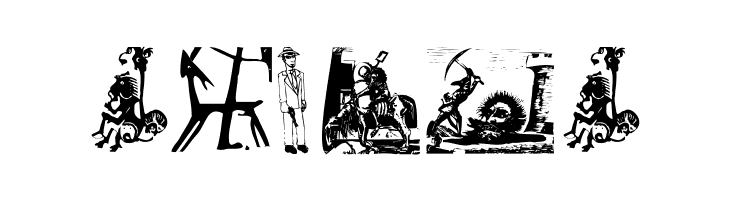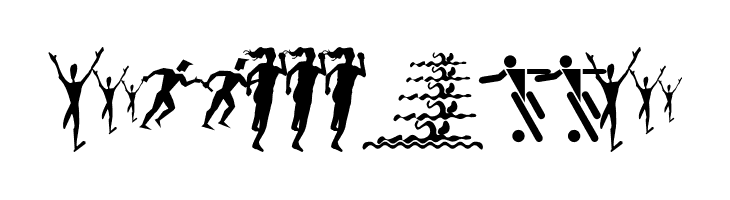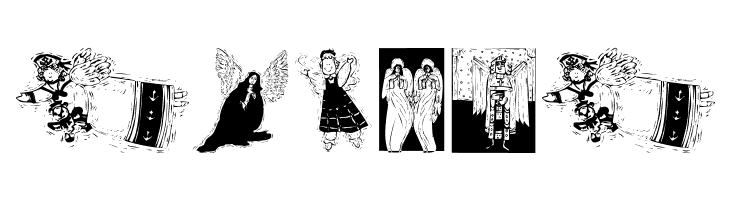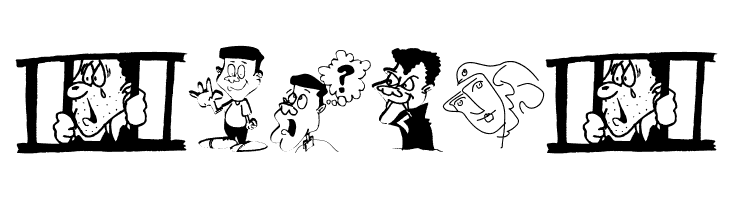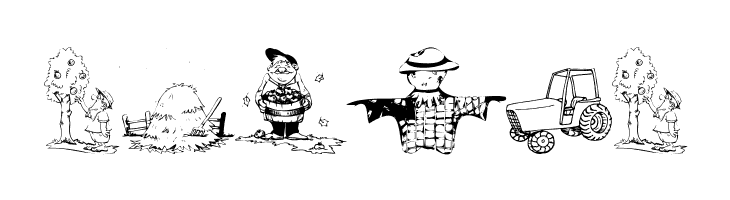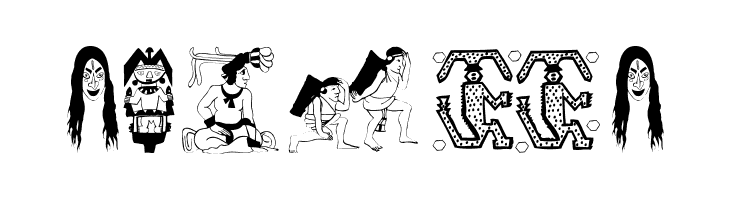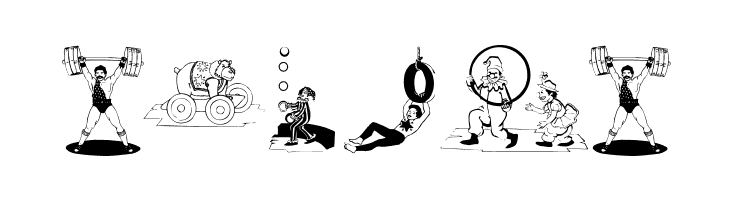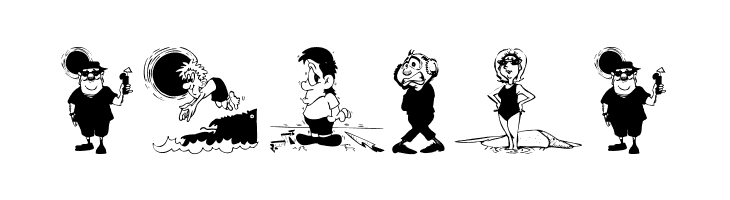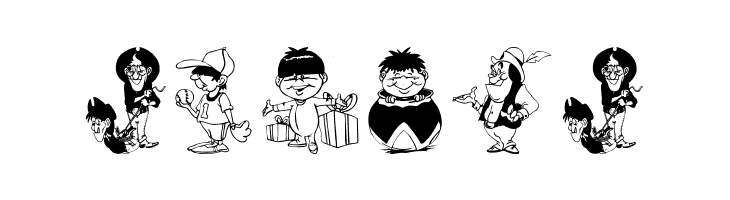
A decorative font with intricate woodcut-style illustrations within each character.
A pictorial, silhouette-based font where each character is formed by groups of people in action.
Pictographic font based on pre-Columbian American motifs.
A playful dingbat font with angelic and festive illustrations.
Cartoonish, illustrative font with each glyph as a unique character drawing.
Farm-themed dingbat font with cartoon-style illustrations.
A pictorial, decorative font based on indigenous American motifs.
Circus-inspired dingbat font with lively illustrations.
Playful, hand-drawn cartoon illustrations themed around weather and activities.
Cartoonish, illustrated font with each character as a unique caricature.